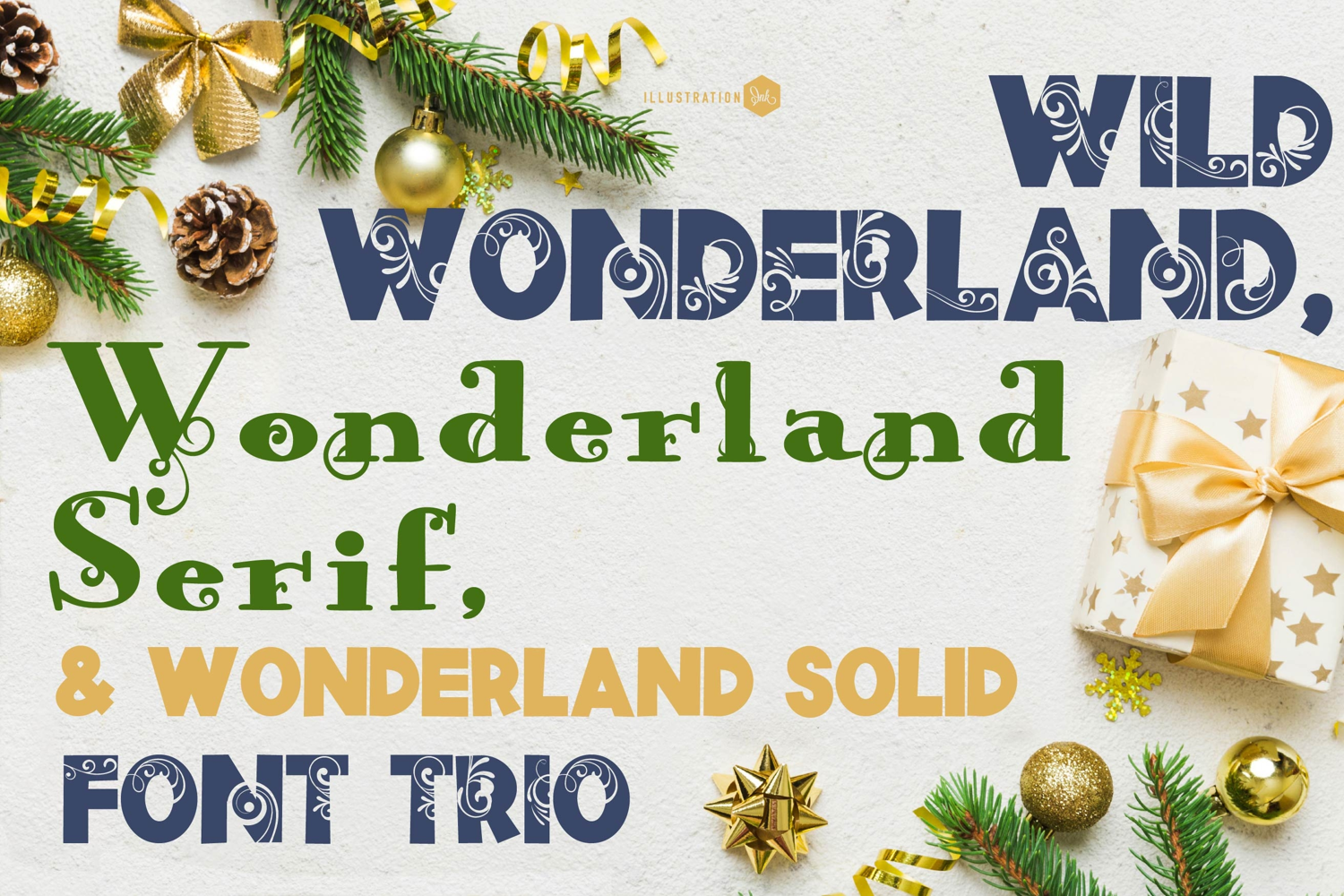
Wild Wonderland Font Duo
This hand-crafted font trio combines an sans serif with flourishes, the same font without flourishes, and a perfectly coordinated serif. Bonus tag dingbat font included! With all family members combined of the 3 fonts, you get 10 fonts all together!